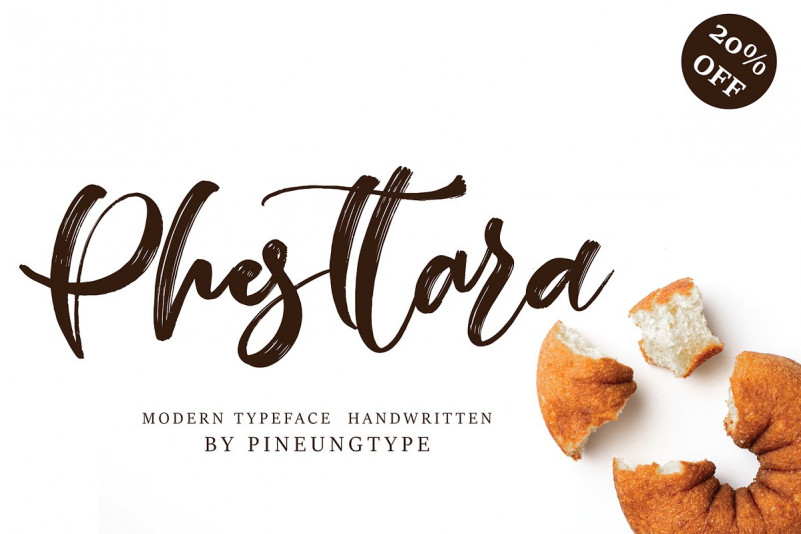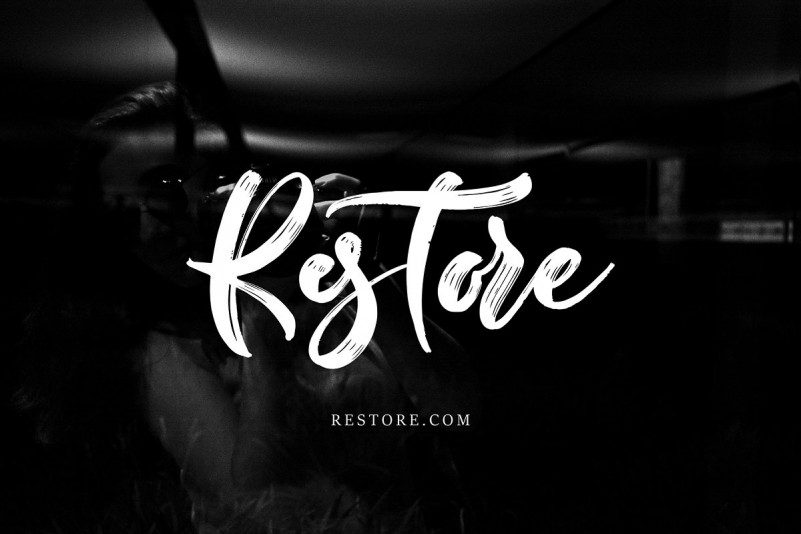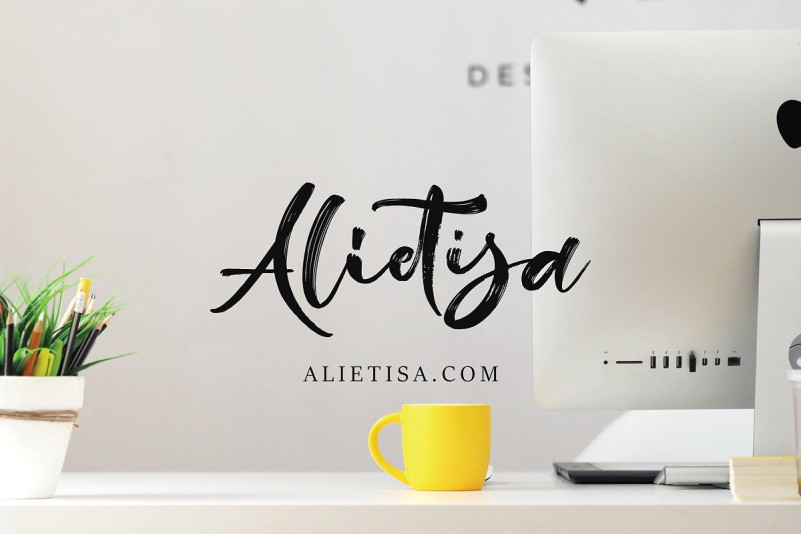
Phesttara Font
Phesttara handwritten font with new style, this font will perfect for many different project ex: quotes, logo, blog header, poster, banding, fashion, apparel, letter, invitation, stationery, etc…